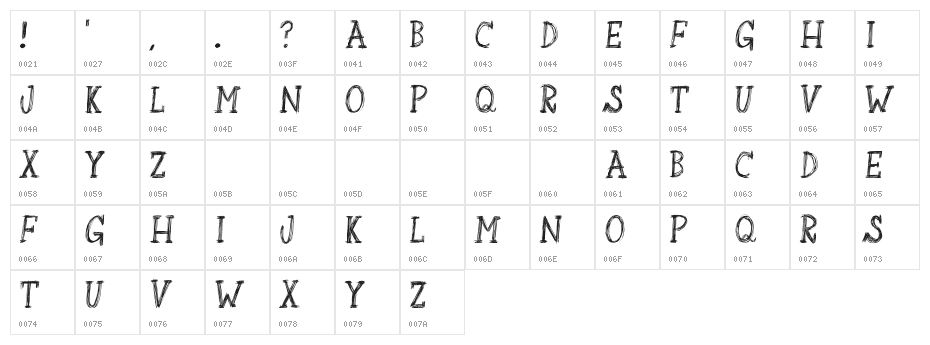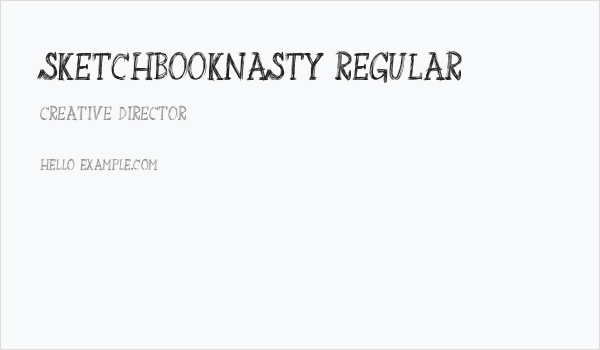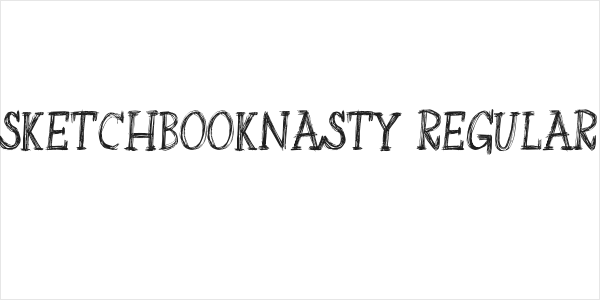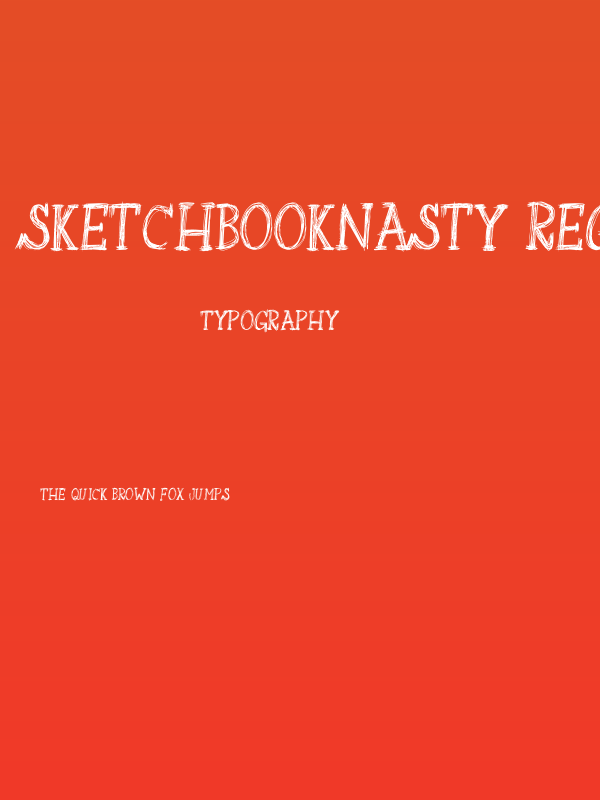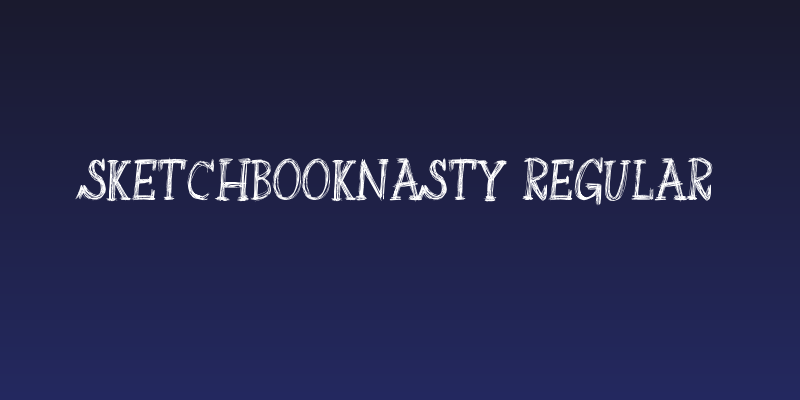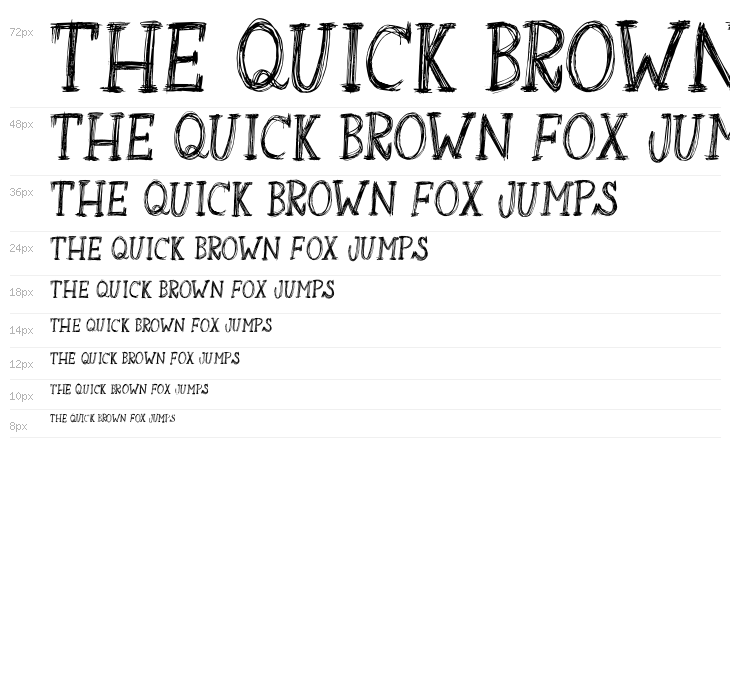
SketchbookNasty-Regular Font
SketchbookNasty-Regular Description
This font features a unique, hand-drawn style that mimics the look of sketching with a pen or pencil. The letters are bold and have a rough, textured appearance, giving them an artistic and somewhat chaotic feel. The strokes vary in thickness, adding to the sketch-like quality and providing a sense of movement and energy. The uppercase and lowercase letters maintain a consistent style, with exaggerated serifs and uneven lines that contribute to its distinctive character. This font is ideal for projects that require a creative, informal touch.
| Overall Style | Artistic, Creative |
| Use Case | Headlines, Posters, Artistic Designs |
| Proposed Projects | Ideal for artistic projects, posters, album covers, and any design needing a creative, informal touch. |